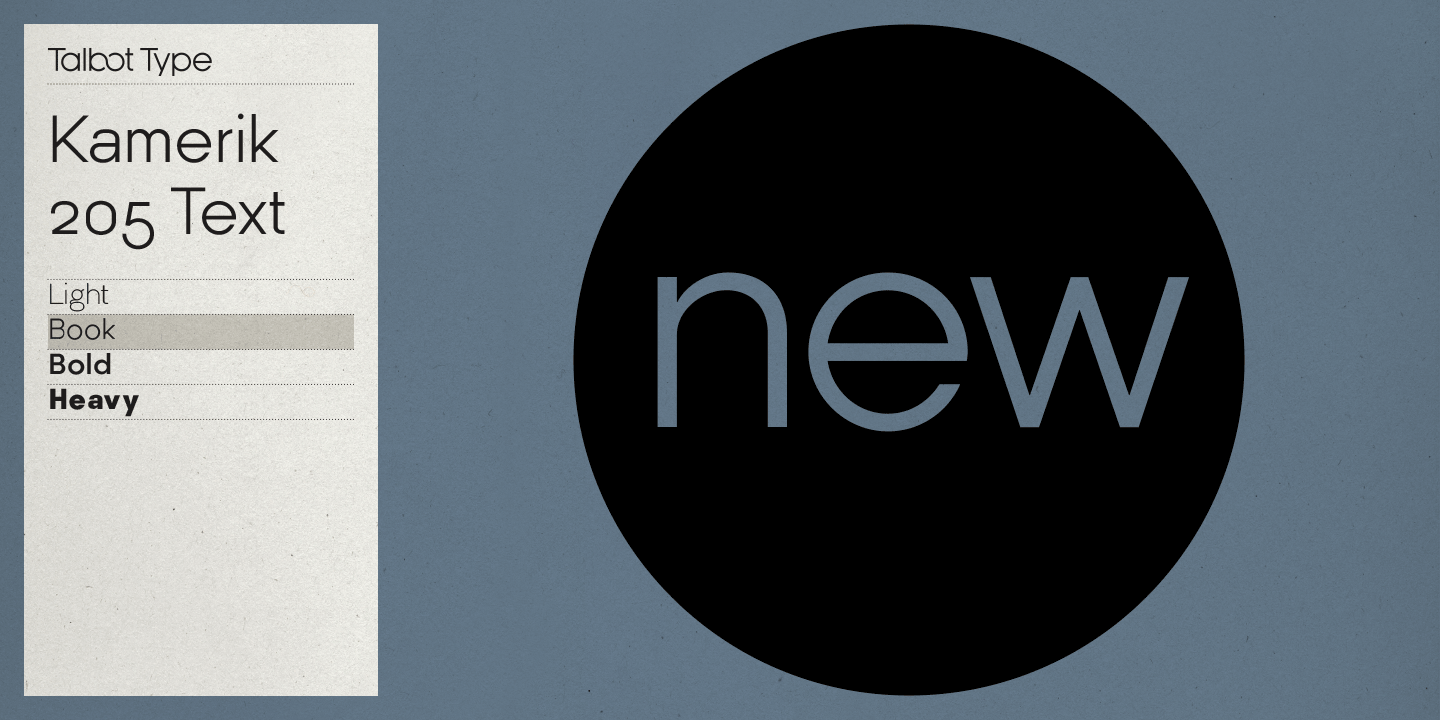
Kamerik 205 Text Font Free Download is a clean, modern sans-serif typeface designed for clarity and readability across a wide range of applications. Its balanced proportions and subtle geometric influences make it perfect for editorial design, branding, websites, presentations, and printed materials. Kamerik 205 Text Font delivers a professional, polished look while maintaining approachability and warmth in its letterforms.
With Kamerik 205 Text Font Free Download, you’ll have access to a complete set of uppercase, lowercase, numbers, and essential punctuation, ensuring versatility for any design project. Whether you’re creating corporate reports, marketing materials, infographics, or user interfaces, this font provides excellent legibility and a sleek aesthetic. Its understated elegance makes it suitable for both body text and headlines.
Elevate your creative projects with Kamerik 205 Text Font Free Download and enjoy the perfect balance of form and function. This versatile sans-serif will help you achieve a clean, contemporary look in both print and digital designs, making it an essential addition to your font library.